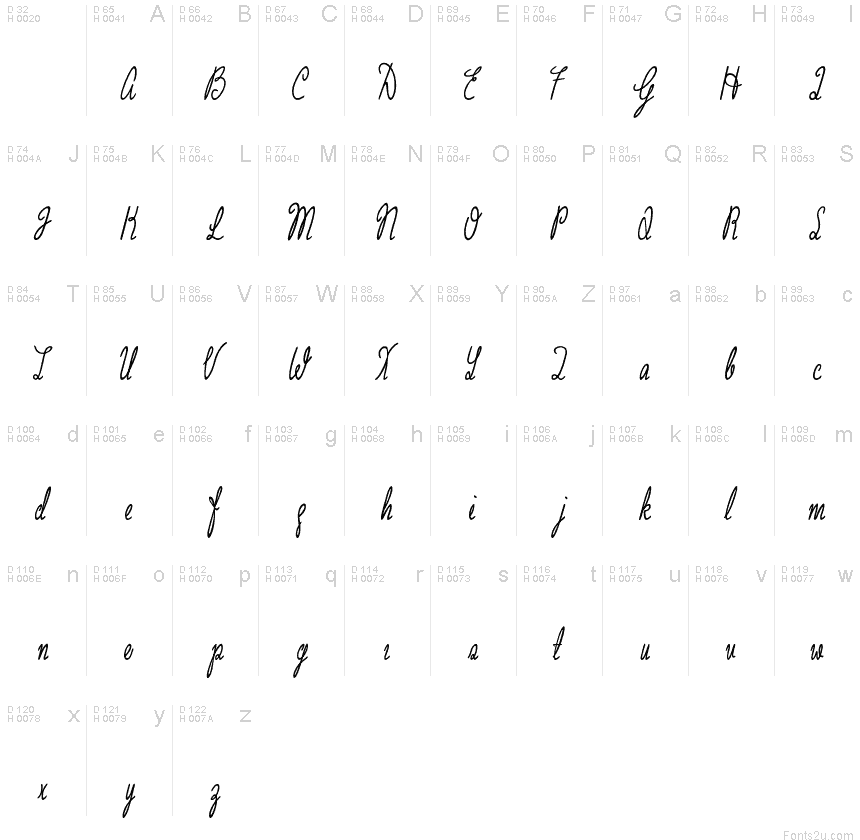
Grannie Terrill Regular
Grannie Terrill is a free calligraphic script with elongated loops and a restless, personal silhouette. Its narrow letters rise into towering arches, then drop into long sweeping strokes that knot and overlap. The line almost never sits still.
Boutique fashion labels and beauty brands could use its signature-like motion for wordmarks and packaging. It also suits album artwork, event invitations, and editorial covers built around expressive lettering. Across these settings, the exaggerated loops turn the name or title into part of the graphic itself.
Grannie Terrill is a free calligraphic script.